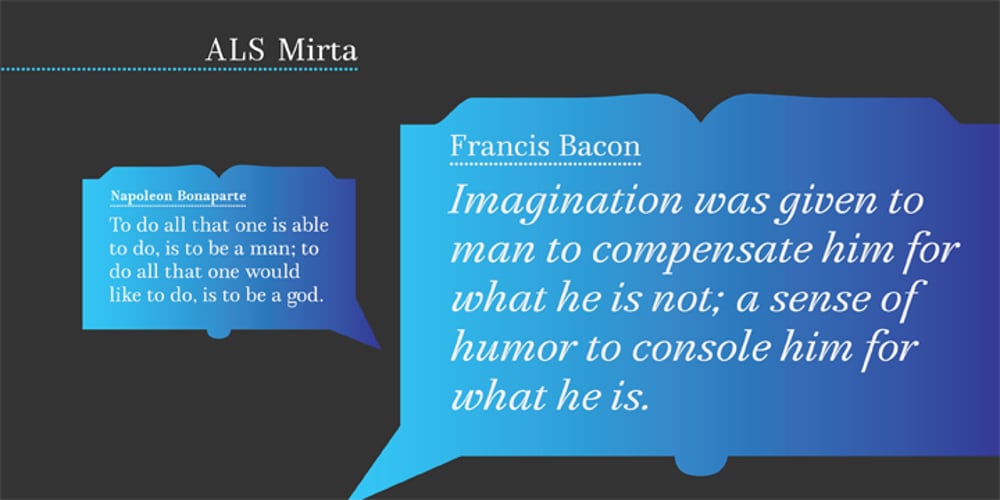
ALS Mirta Font Family was designed by Elena Novoselova and published by Art. Lebedev Studio. ALS Mirta contains 4 styles and family package options. ALS Mirta is a clean text type well-suited for use in typesetting of smart volumes and kids’ books. A fine and well-balanced antiqua face is complemented by surprisingly vigorous sophisticated italics.